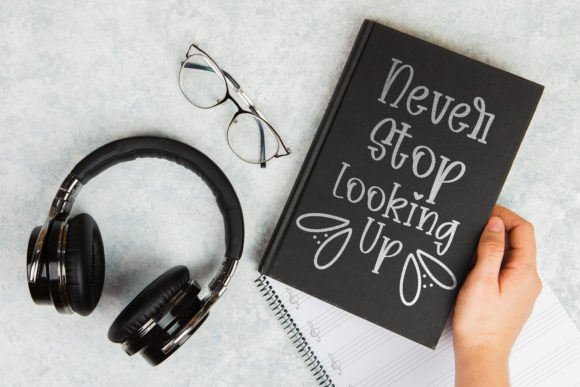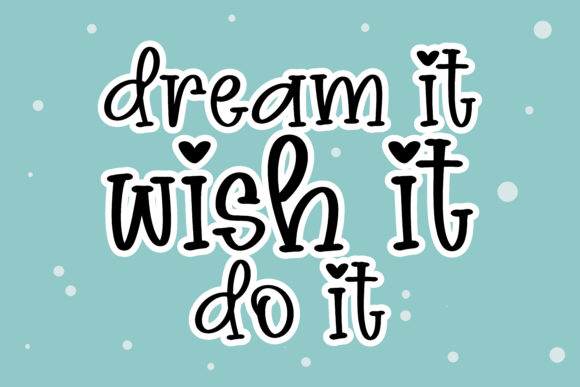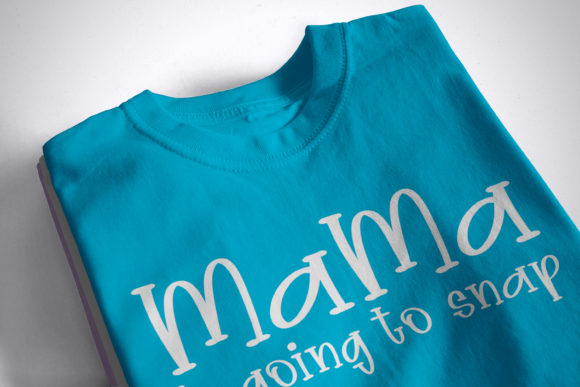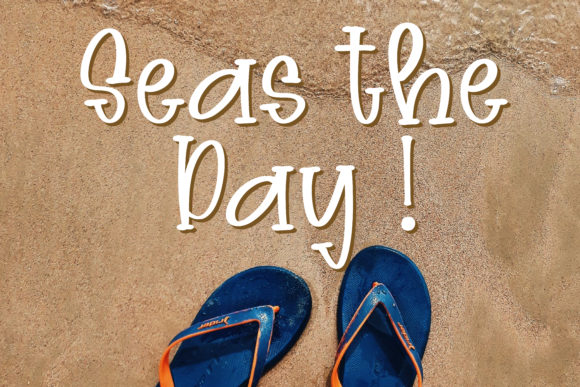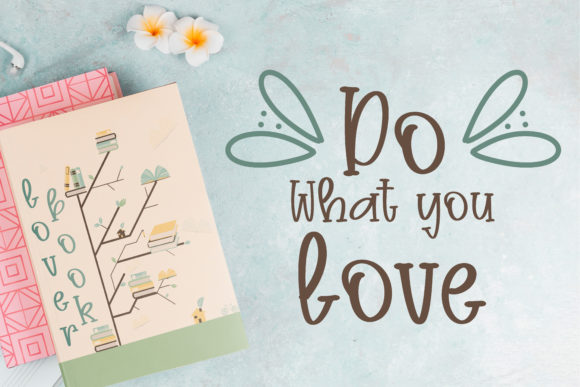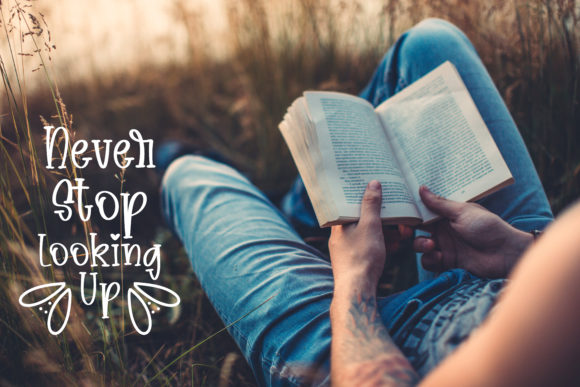
Introduction to Readery Font
Do you remember the feeling of excitement when you stumble upon the perfect design resource for your creative project? For me, it was the moment I discovered the Readery Font – a sweet and friendly handwritten font that instantly elevated my designs. Its natural and unique style made me feel like I could finally bring my ideas to life in a way that felt authentic and engaging.
As a designer, I can attest to the value of having access to high-quality design resources like the Readery Font. With its versatility and charm, it’s the perfect addition to any design project, whether you’re working on a personal or commercial project. The best part? It’s available for free download, making it an incredible resource for designers of all levels.
Key Features of Readery Font
- High-quality design resource perfect for creative projects, with a transparent background for seamless integration.
- Includes 5 unique font styles, each with its own distinct characteristics, making it an ideal choice for designers seeking a versatile font.
- Supports a wide range of languages, making it a great option for international design projects.
Honest Review: Readery Font
I recently had the chance to work with the Readery Font, and I must say it’s been a great addition to my design resources. This free download has been a game-changer for my creative projects, providing a high-quality font that’s perfect for a variety of uses.
- ✨ Elegant and sophisticated design that’s perfect for book covers, literary works, or any project that requires a touch of sophistication.
- ✨ Transparent background, making it easy to customize and integrate with any design.
- ✨ High quality, making it perfect for both digital and print projects.
One of the things I appreciate most about the Readery Font is its versatility. It’s a great option for designers who want a high-quality font without breaking the bank.
- ⚠️ Limited customization options, which may be a drawback for some designers.
- ⚠️ May not be suitable for projects that require a more playful or bold font.
Overall, I’m impressed with the Readery Font and would highly recommend it to designers looking for a high-quality, free font.
Readery Font is a versatile design resource that can be used in a variety of creative projects, including blog posts, social media graphics, and marketing materials. It’s a great choice for designers looking for a high-quality, free download font.
Yes, Readery Font is designed to be highly legible, even on websites with transparent backgrounds. The font’s high quality design ensures that it will display clearly, even when placed over a busy or complex background.